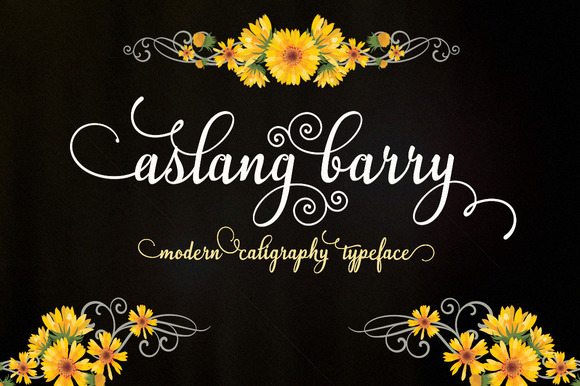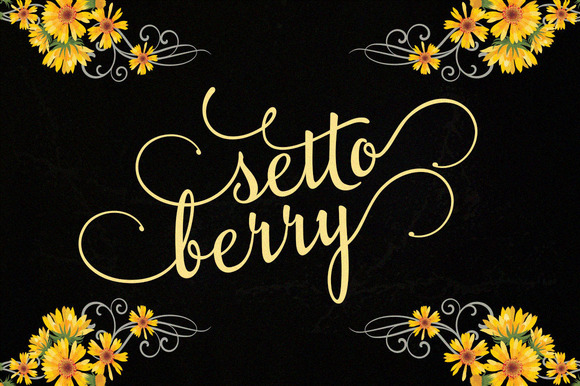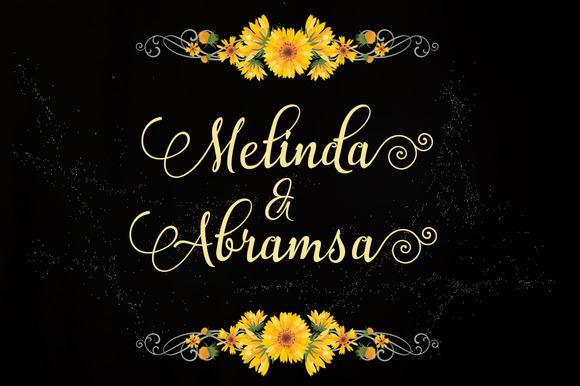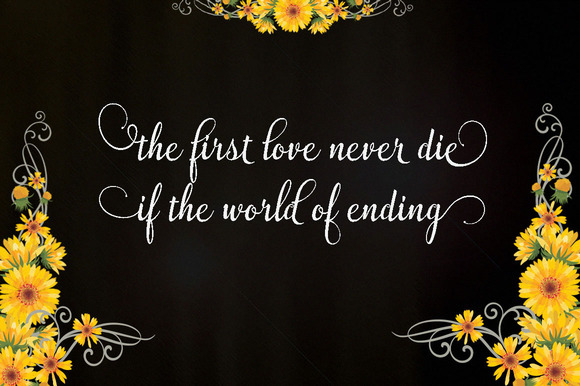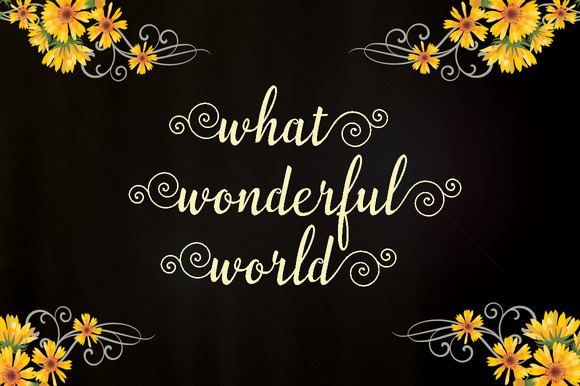
Aslang Barry Font
About Aslang Barry Font
Aslang Barry is an elegant classy calligraphy font created by Groens Studio.
This classic font with a modern twist contains 525 glyphs including 300 alternate characters. Enough to keep the creativity flowing!